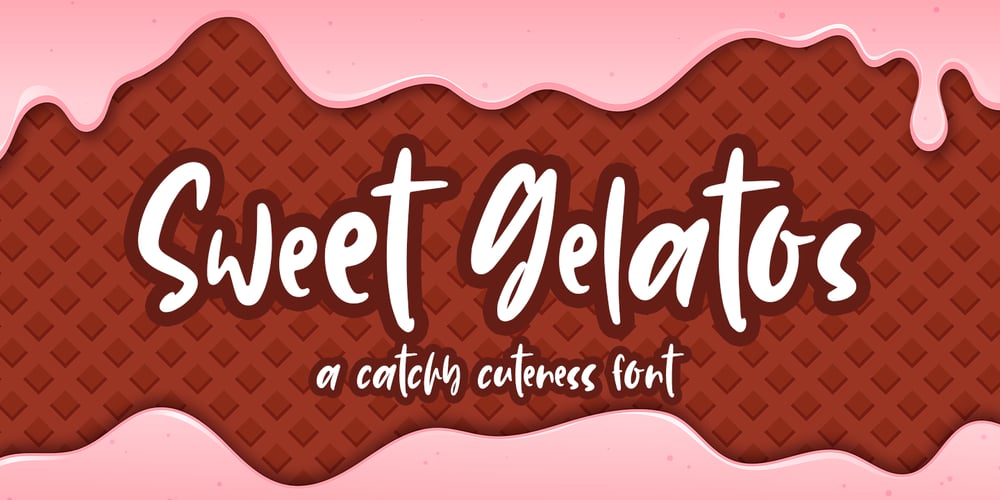
Sweet Gelatos Font Family was designed by Abo Daniel and published by Abo Daniel. Sweet Gelatos contains 1 styles and family package options. introducingSWEET GELATOS- a catchy cuteness font -SWEET GELATOS is natural handwritten font.It is great for branding, packaging, quotes, cards, banners, books, cutting, silhouettes, social media content, and anything about your project.This font is unique. The lowercase and uppercase match each other, so you can combine them as you want.Features: Uppercase Lowercase Number & punctuations Ligatures Multilingual PUA encoded I hope you love it.regards,Abo Daniel Studio